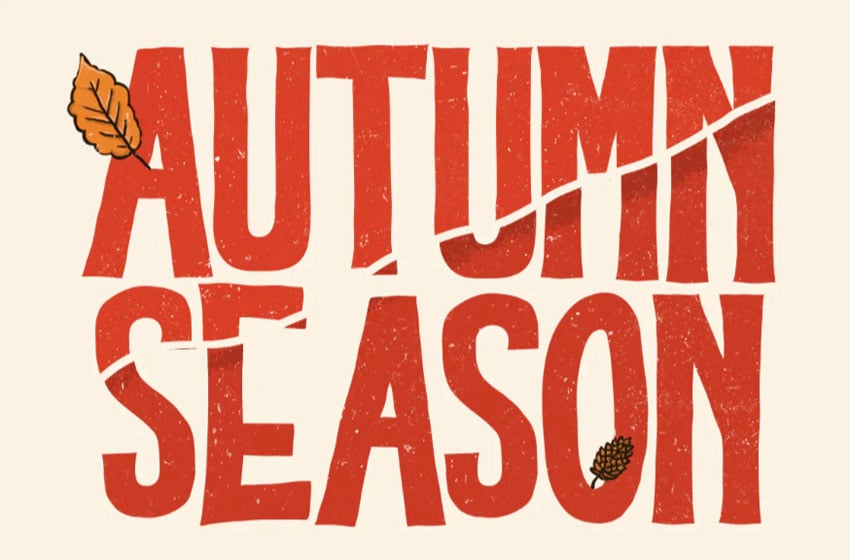
The Best Fonts Fall 2022
The Best Fonts Fall 2022. Fall fonts explore 36,556 stunning fall fonts to download and find the perfect match that fits your next web and print design projects of all sizes. Additionally, the logo has been enhanced with a 3d effect.
So now it’s time to get started on your fall projects. Fall it is already here, and is time to start thinking of your next seasonal project! The original fall guys logo is probably a custom work.
Fall fonts explore 36,556 stunning fall fonts to download and find the perfect match that fits your next web and print design projects of all sizes. Where to download fall fonts click on each of the links below the pictures to find where you can download or purchase the font. It’s that time of year when the leaves are falling and pumpkin everything is around.
Cozy Sweaters, Roasted Chestnuts, Pumpkin Patches, Apple Cider, Golden.
Script Fonts For Fall The Fonts Below All Have A Script Or Cursive Style That Works Well For Feminine Designs.
Fall in autumn is a handwritten script font and serif, perfect to create cute handmade designs, such as logos, craft, packaging, prints and postcards, patterns, and social. For cricut and cameo projects, thicker script fonts work well to. Beautify is a chunky script with a bunch of alternate characters for really customizing your projects.